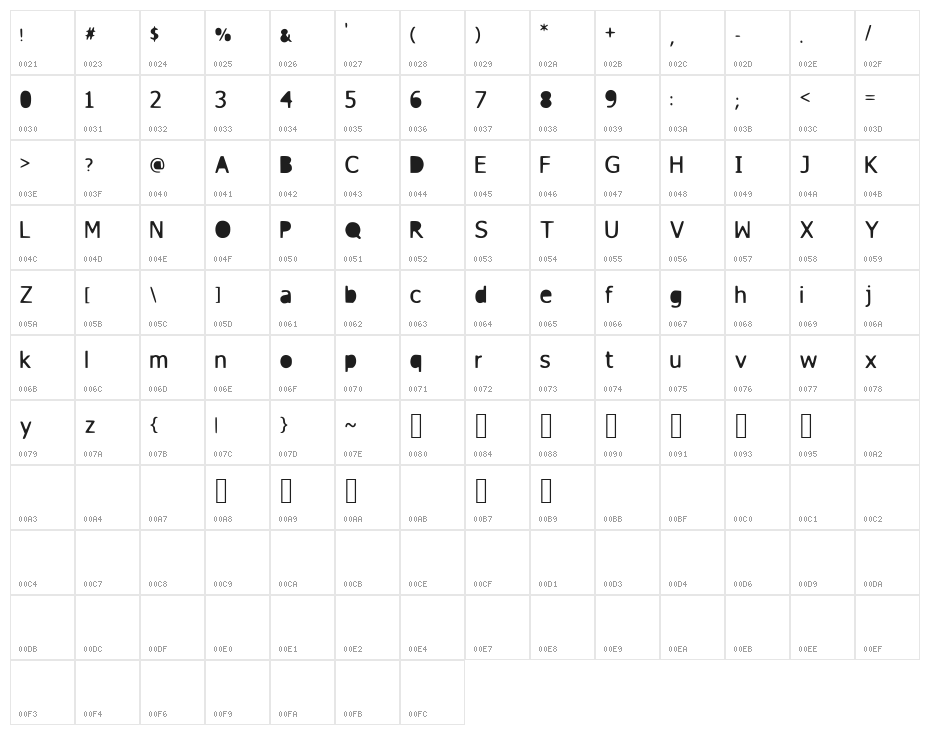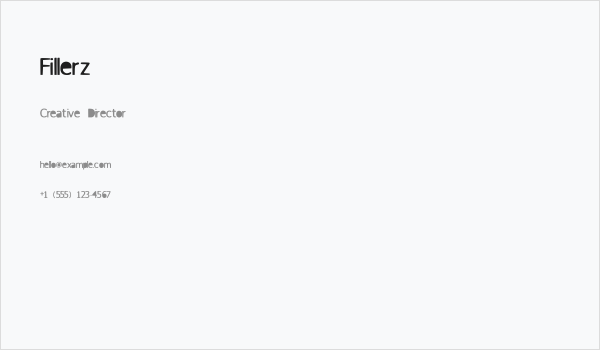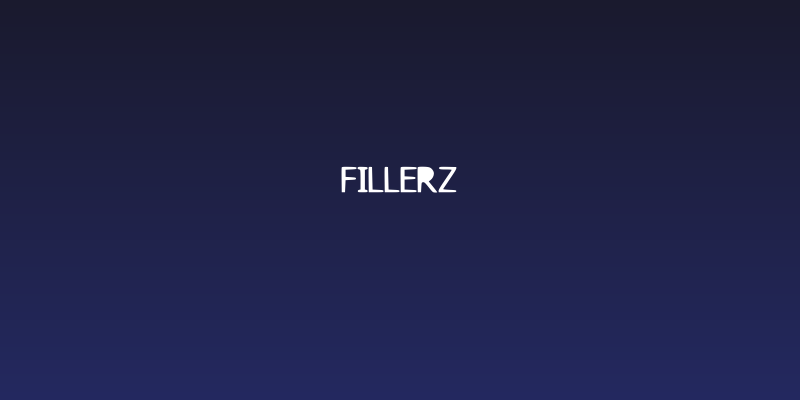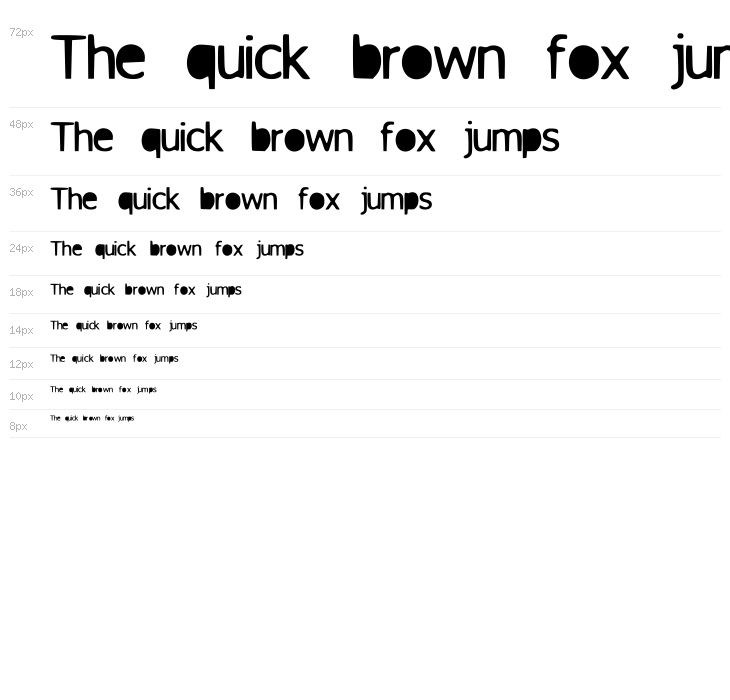
Fillerz Font
Fillerz Description
This font features a bold and playful design with rounded edges and a slightly condensed appearance. The uppercase letters are prominent and have a strong presence, while the lowercase letters maintain a consistent style with a touch of whimsy. The numbers are bold and easily readable, making them suitable for various applications. Special characters are included, adding versatility to the font. The overall style is modern and slightly decorative, making it ideal for creative projects that require a fun and engaging typeface.
| Width | Condensed |
| Overall Style | Modern, Decorative |
| Proposed Projects | Ideal for children's books, playful branding, posters, and creative digital content. |